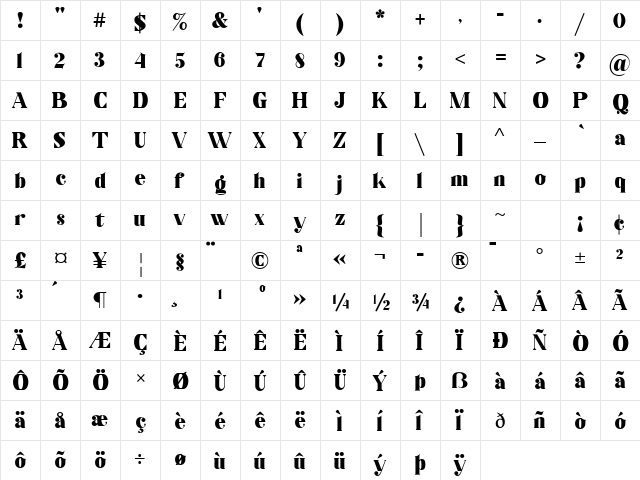
Black Wano Demo Black
Design Context for Black Wano Demo Typeface
Black Wano Demo offers clean, dependable letterforms without strong stylistic allegiance, making it a practical choice for designers who need flexibility.